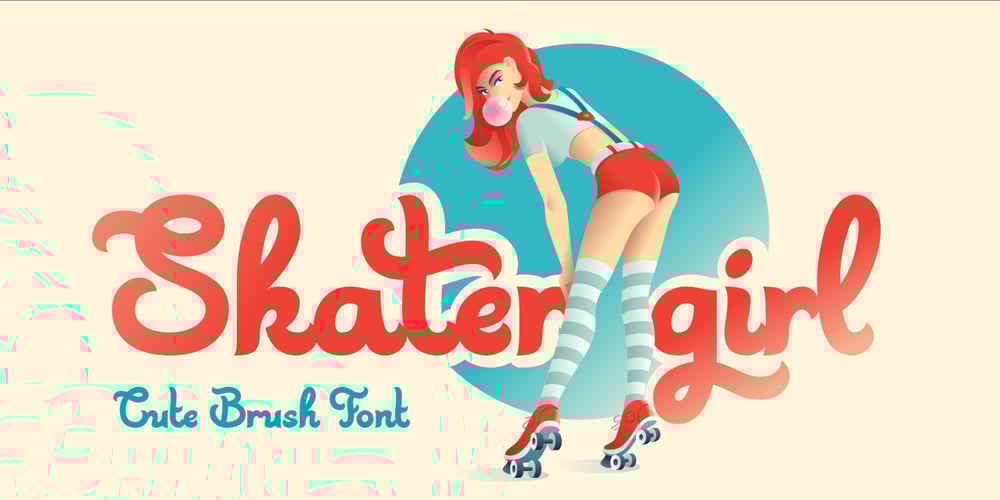
Skater Girl Font Family was designed by Gleb Guralnyk and published by Gleb Guralnyk. Skater Girl contains 1 styles and family package options. Hi! Presenting a cute pin-up style font named Skater Girl. It has a modern and vintage look at the same time. Also few ligatures and alternate glyphs are available in this typeface.